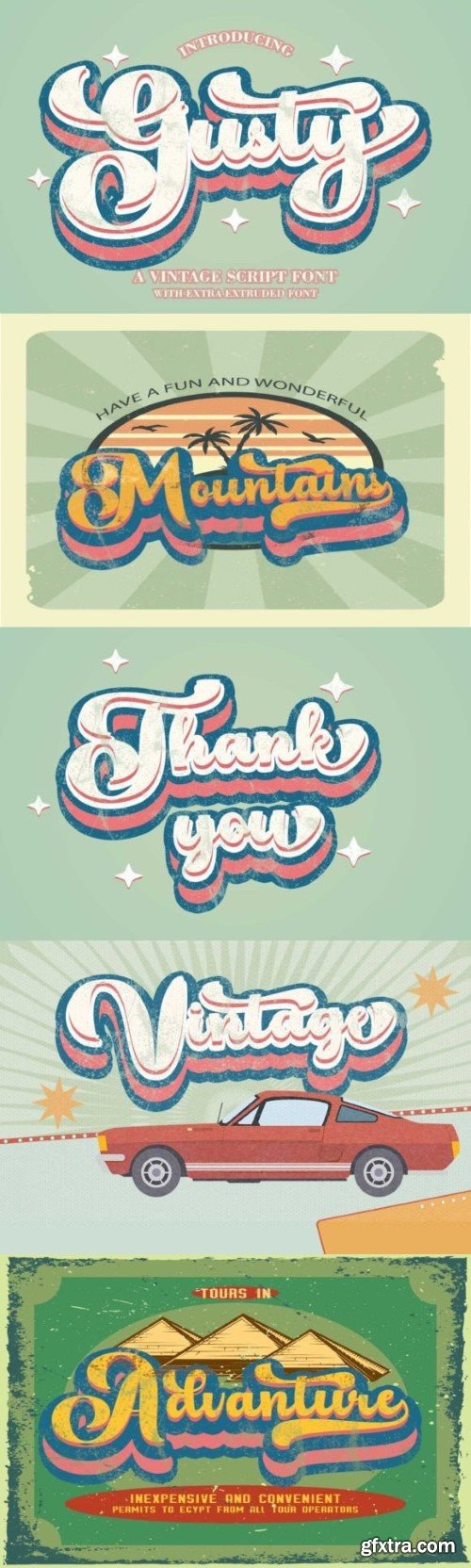
Gusty Font
Gusty is a retro groovy script font exuding vintage vibes and psychedelic flair. Its fluid strokes and whimsical curves evoke the free-spirited atmosphere of the 1960s and 70s. Perfect for posters, album covers, and branding projects seeking to infuse a nostalgic, playful energy into their designs.